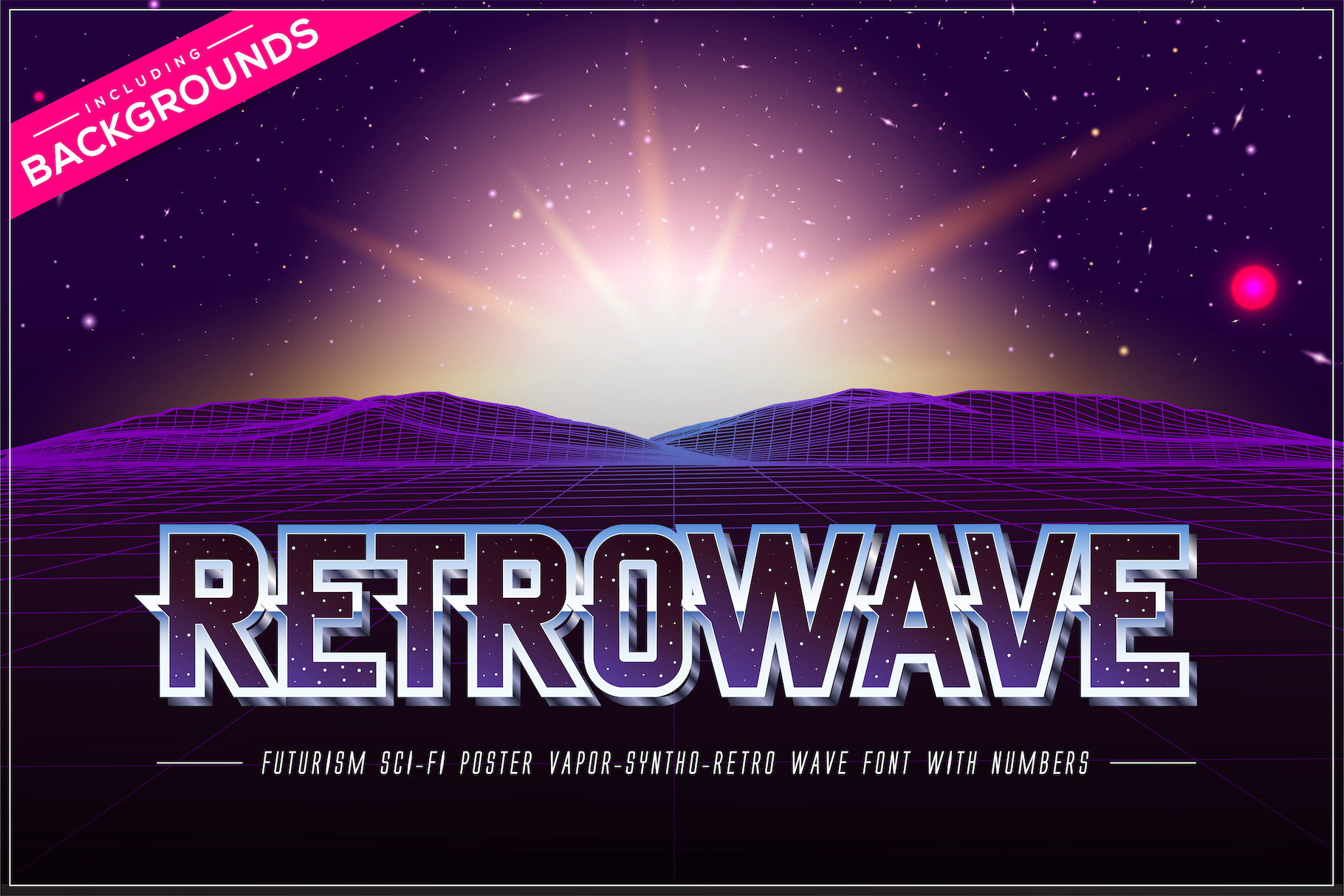
Retrowaver Color OTF Font
This pack contains Retrowaver trendy Vapor wave, Synth wave, Retro wave Styled Color OpenType Font in .OTF file format with letters and numbers (Adobe Illustrator 2018+). Also this pack contains 4 additional vapor wave backgrounds + 2 sample flyers. Each letter and number also introduced in big size PNG with transparency and PSD formats.